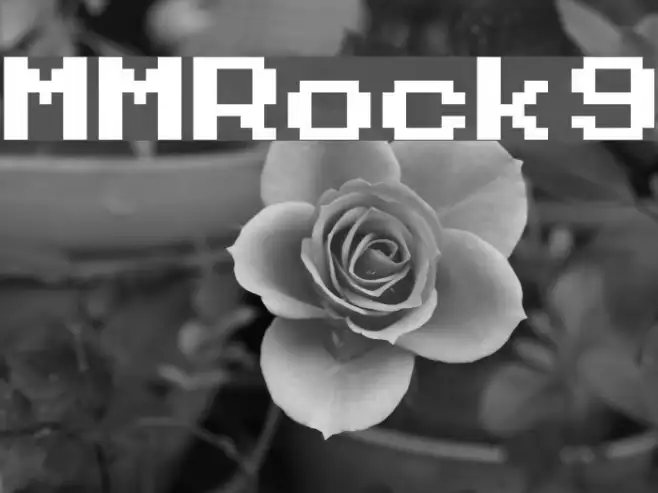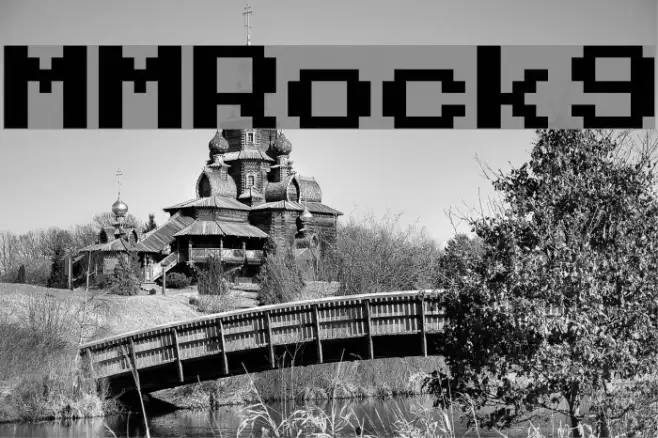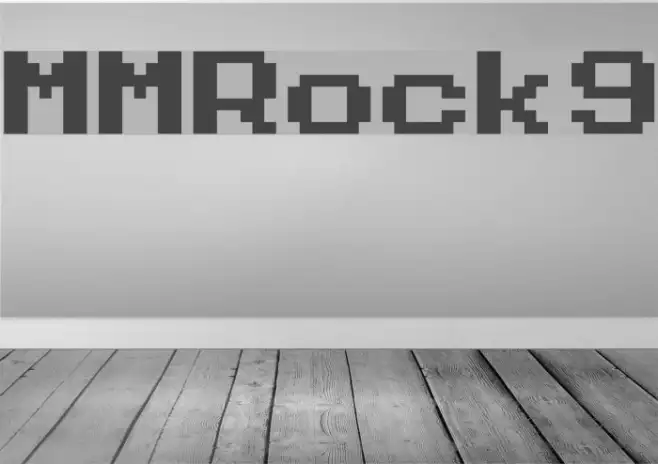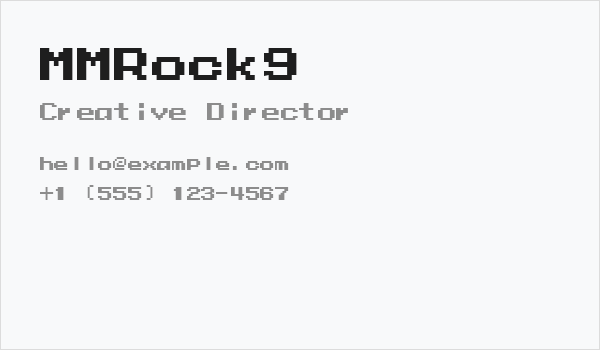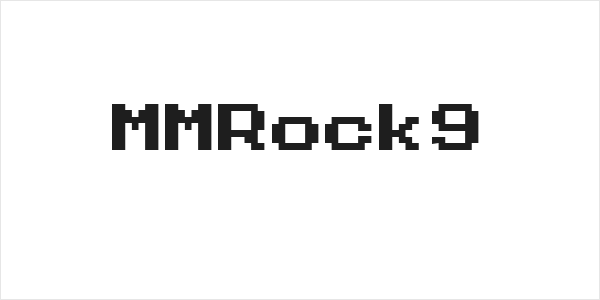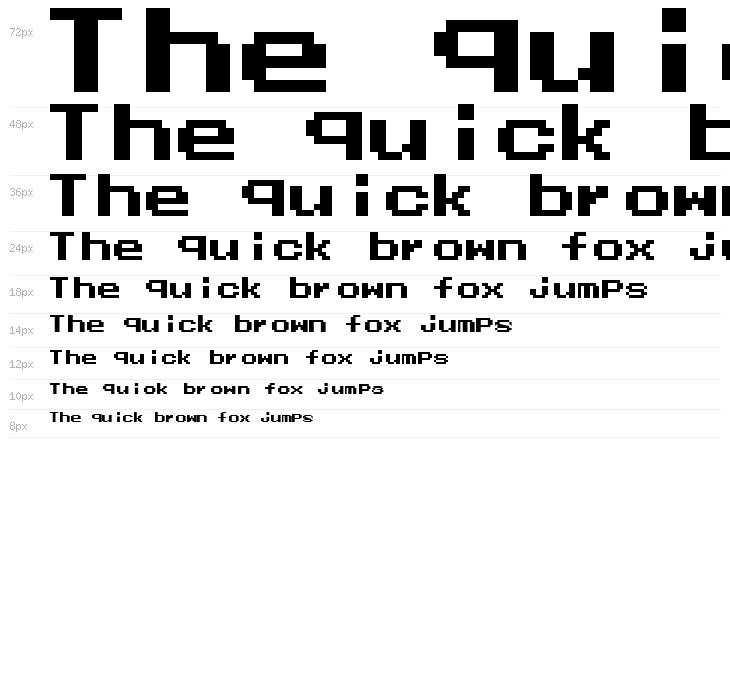
MMRock9 Font
MMRock9 Description
This font features a bold, pixelated style reminiscent of early digital displays and retro video games. Each character is constructed with a blocky, grid-like appearance, giving it a distinctly digital and geometric aesthetic. The uppercase and lowercase letters maintain a consistent height, contributing to a uniform and cohesive look. Numbers and special characters follow the same pixelated design, ensuring a seamless integration across all text elements. The font's simplicity and clarity make it highly legible, even at smaller sizes, while its nostalgic charm adds a playful touch to any design.
Overall StyleRetro, Digital
Use CaseLogos, Headlines, Posters, Digital Art
Proposed ProjectsIdeal for retro-themed designs, video game graphics, digital art projects, and any creative work seeking a nostalgic, digital look.